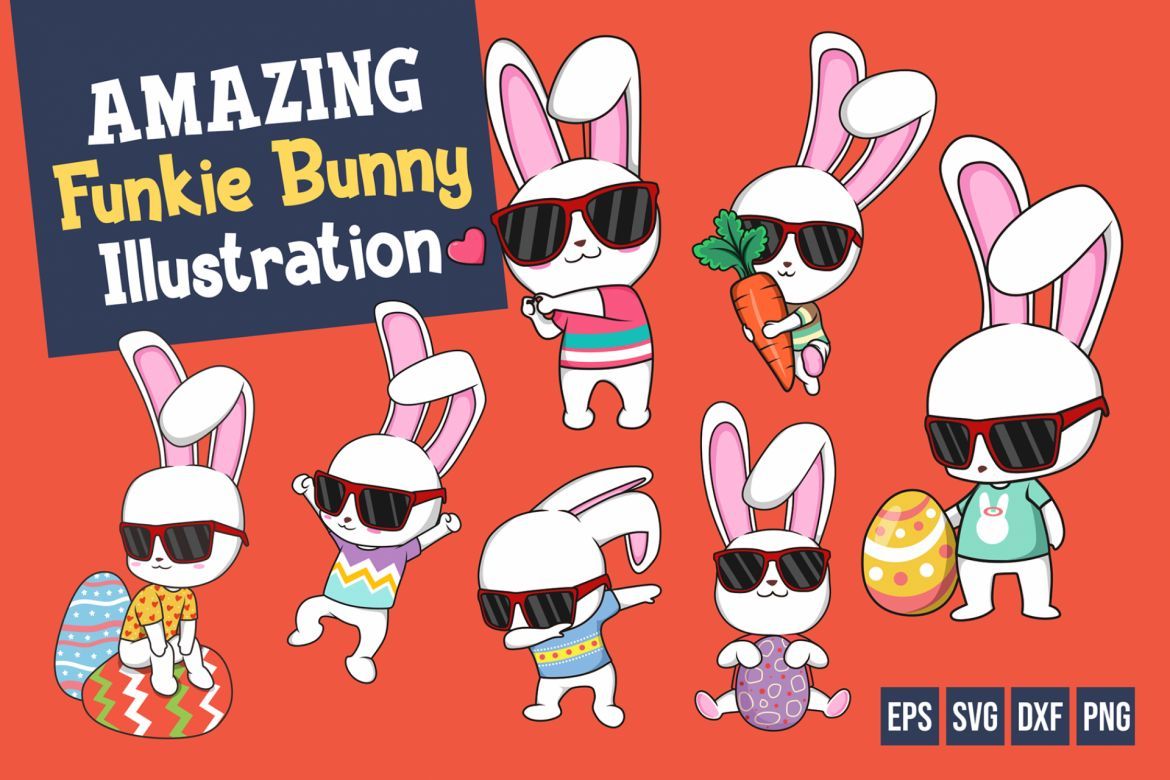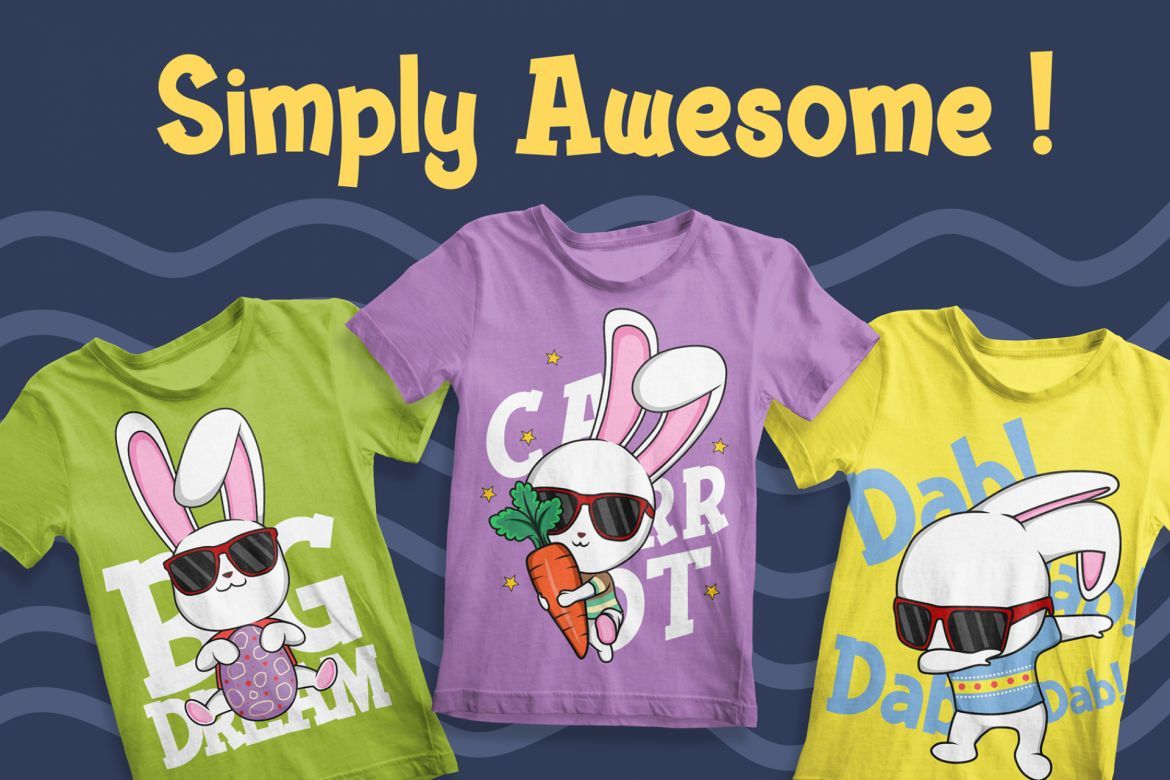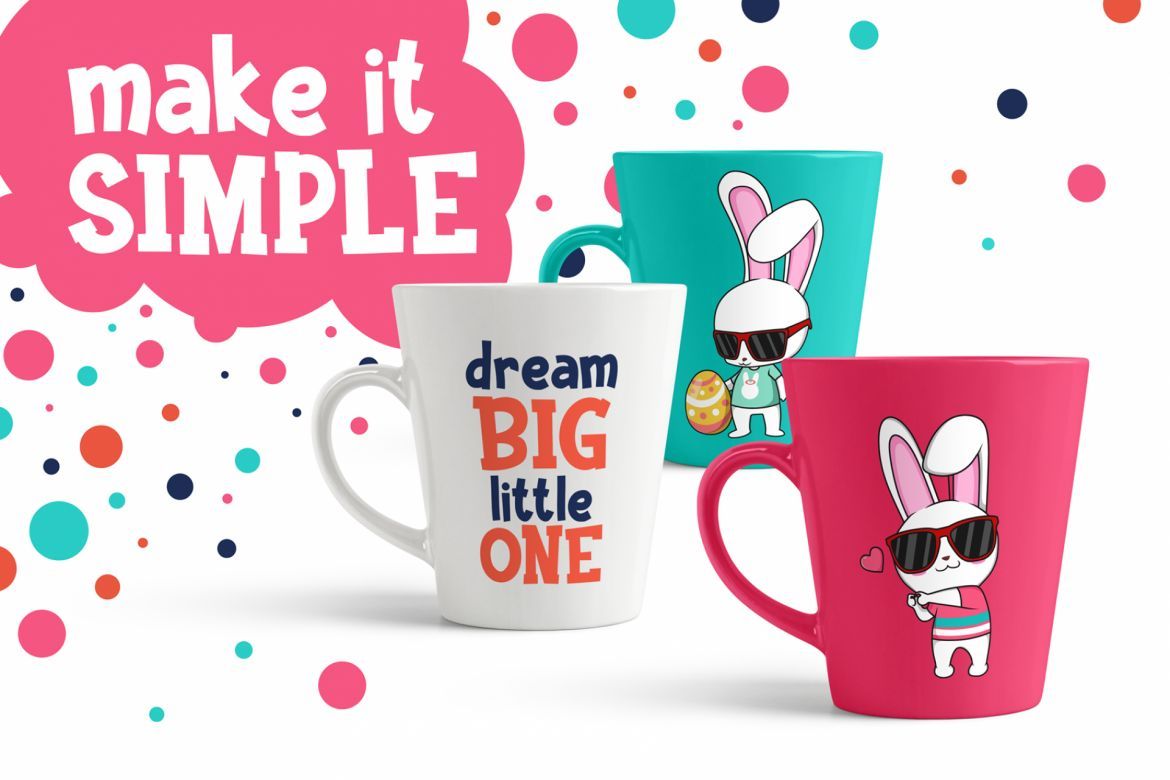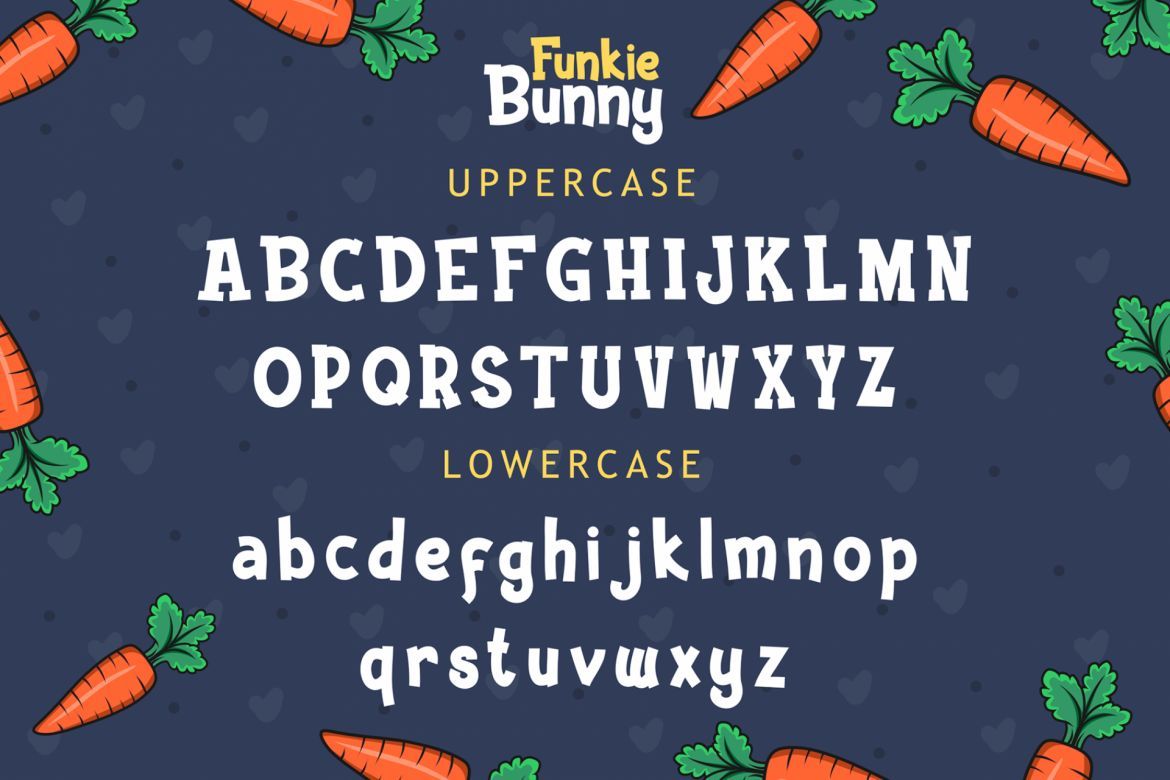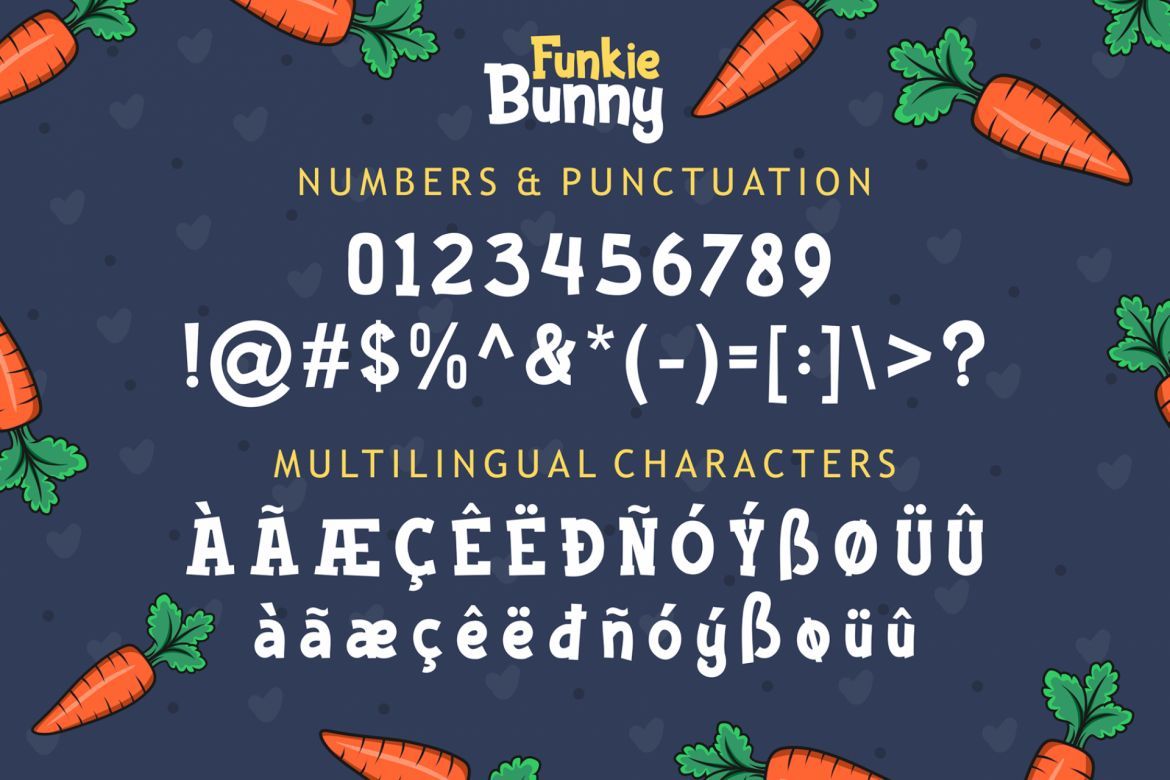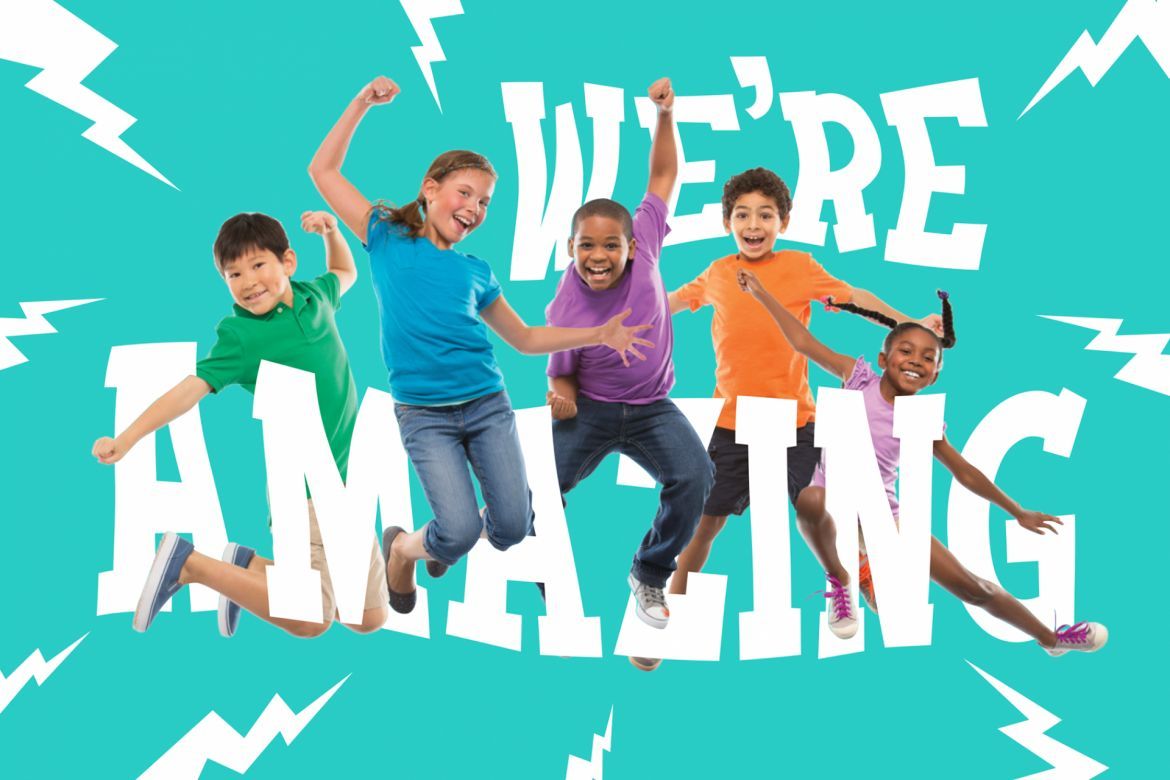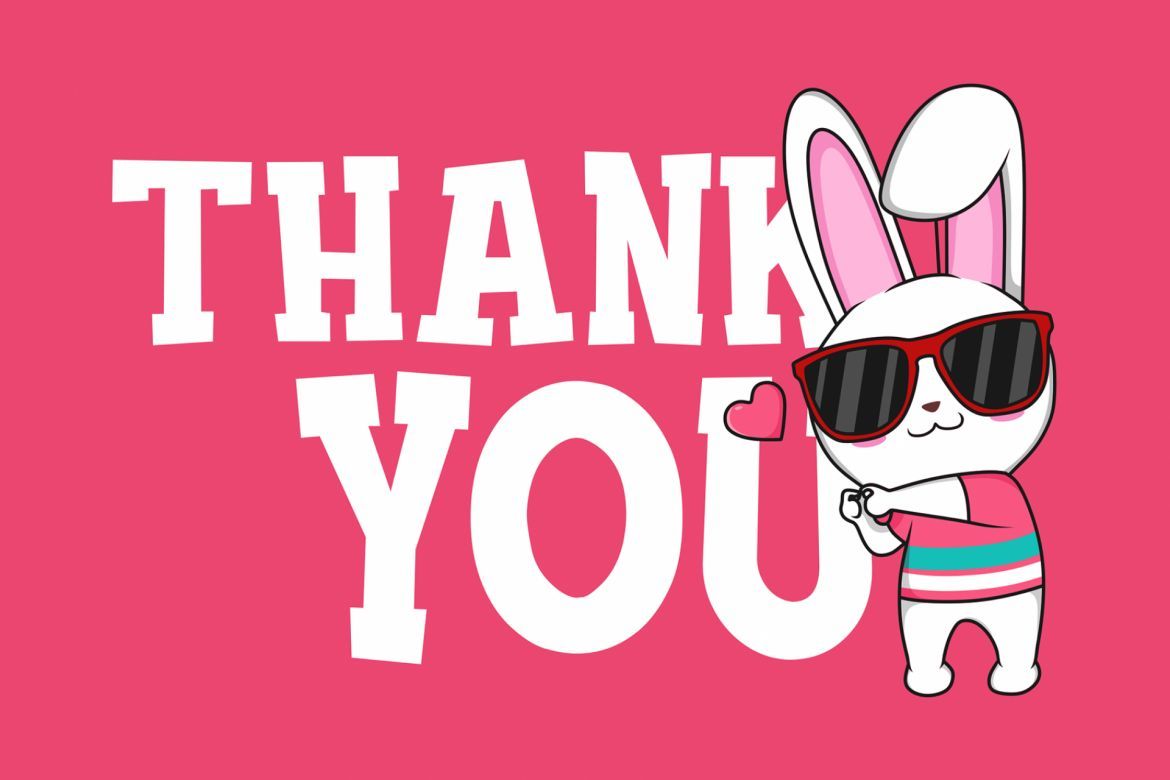
Funky Bunny Display Font
Funkie Bunny is a fancy font that is inspired by the joy of rabbits and joyful Easter.
Funkie Bunny comes with an awesome illustration, make it very perfect to use for quotes, logotype, badges, labels, packaging, t-shirt, or simply use it in your next design project.